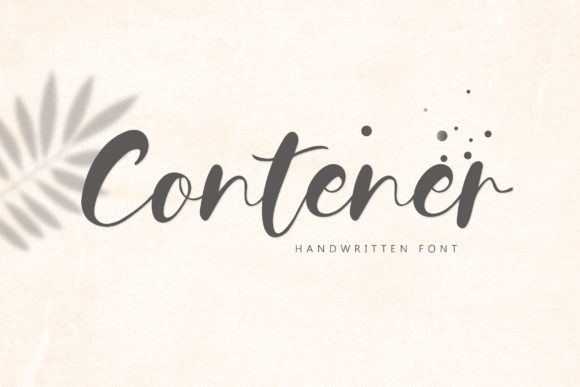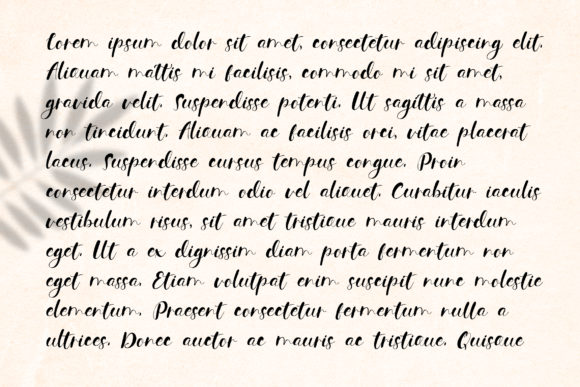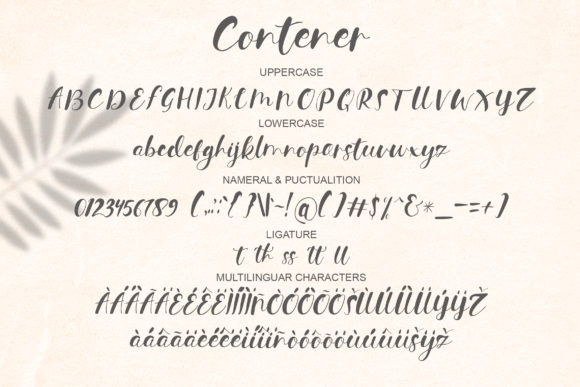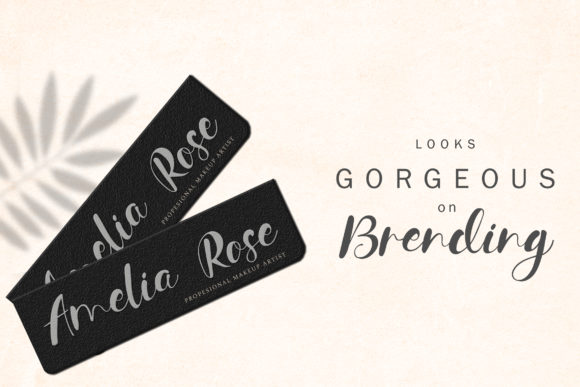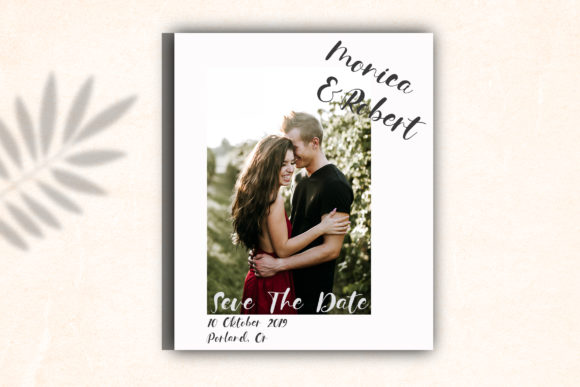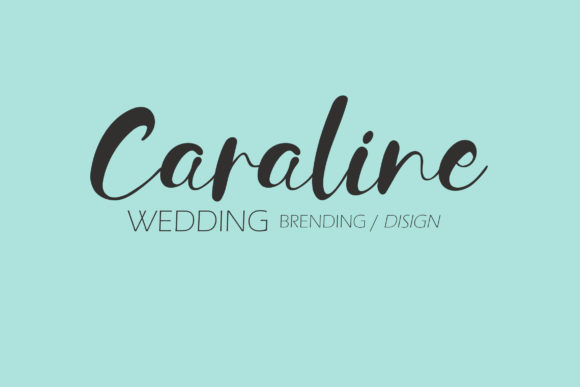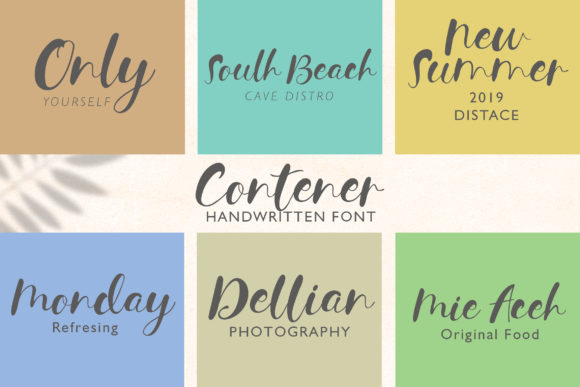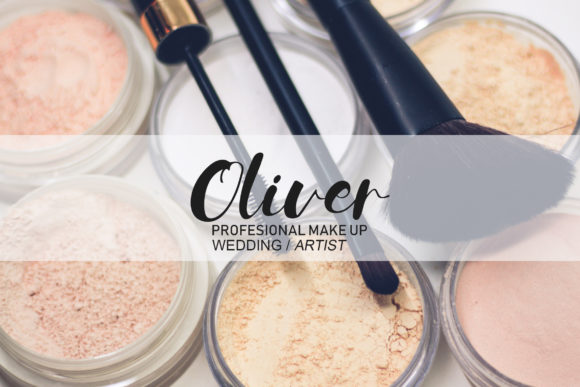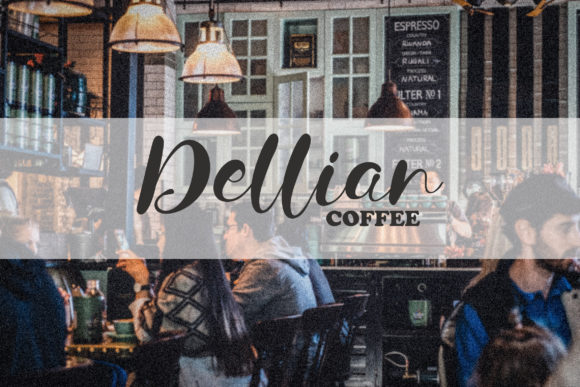
HomeScript FontsContener Font Script Fonts Contener Font FacebookXPinterestWhatsApp Contener Font Poster 2 Contener Font Poster 3 Contener Font Poster 4 Contener Font Poster 5 Contener Font Poster 6 Contener Font Poster 7 Contener Font Poster 8 Contener Font Poster 9 Contener Font Poster 10 Contener Font Poster 11 About Contener Font Contener is a unique handwritten font with a bold twist. Use it to add an authentic spark to any design project! DOWNLOAD ON CREATIVE FABRICAThis font is sold and delivered by Creative Fabrica. Font Canyon may earn a commission if you buy through this link. People also explored Castlerigg Jexters Amstrong Font Together Always Font Pinky Smoke Font Boyfriend Font Smileheart Font Gustavo Eastwood Font Belymon Script Font Cognac 339 0 TagsContener Font Previous articleChattelyne FontNext articleBantasi Font LEAVE A REPLY Cancel reply Comment: Please enter your comment! Name:* Please enter your name here Email:* You have entered an incorrect email address! Please enter your email address here Website: Save my name, email, and website in this browser for the next time I comment. Personal Use Free Saolice Personal Use Free Read more about this font Sushi Stroke Personal Use Free Read more about this font Uchiyama Personal Use Free Read more about this font Written by Hand Personal Use Free Read more about this font BLOG Top 7 Google Fonts Alternatives for Faster and Privacy-Friendly Web Design (2025) Top 7 Google Fonts Alternatives for Faster and Privacy-Friendly Web Design (2025) When it comes to web typography, Google Fonts has long been the go-to... Top 10 Handwritten Fonts That Elevate Your Designs Where to Buy American Fonts Online in 2024 Modern Sans-Serif Fonts That Brands Love in 2025